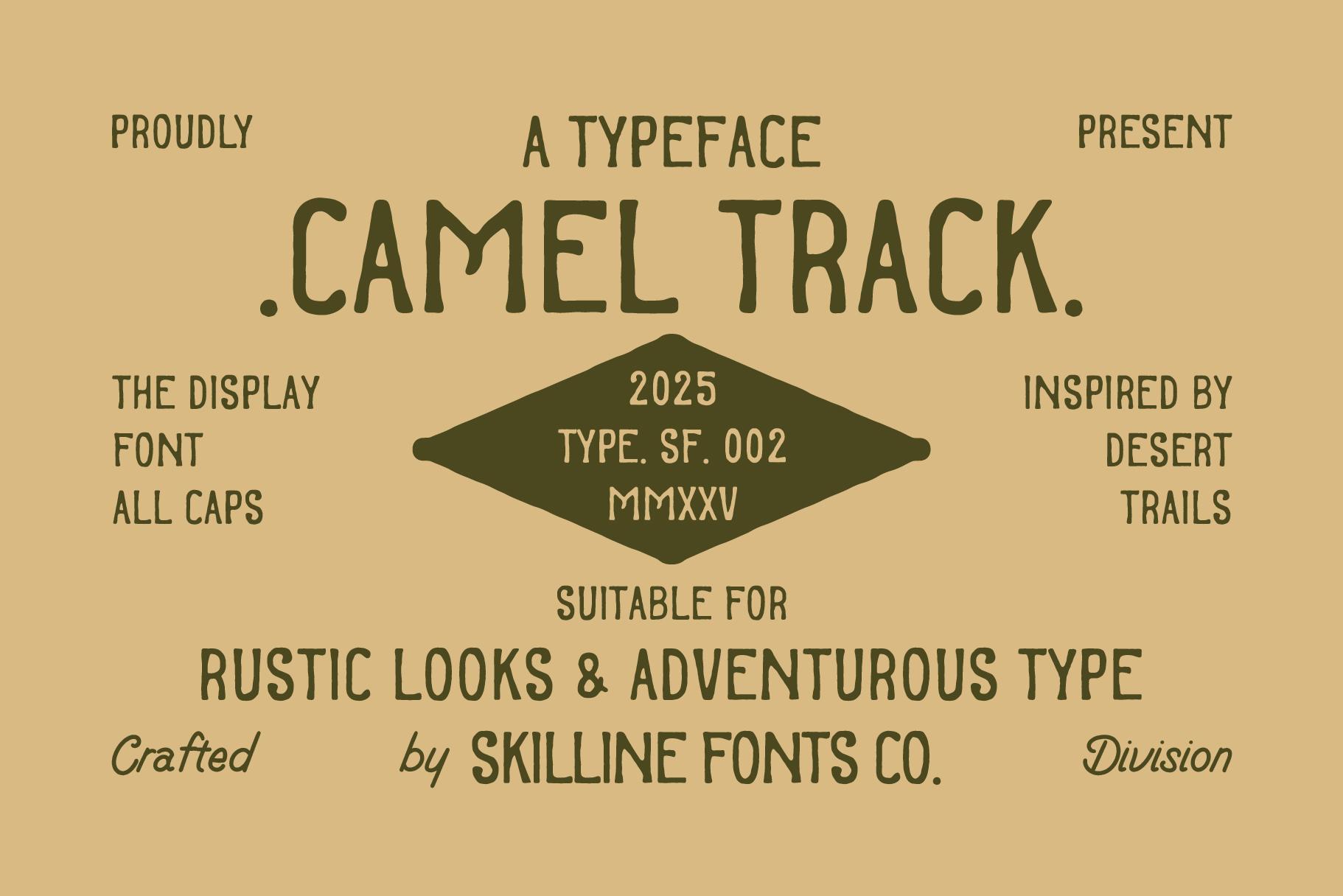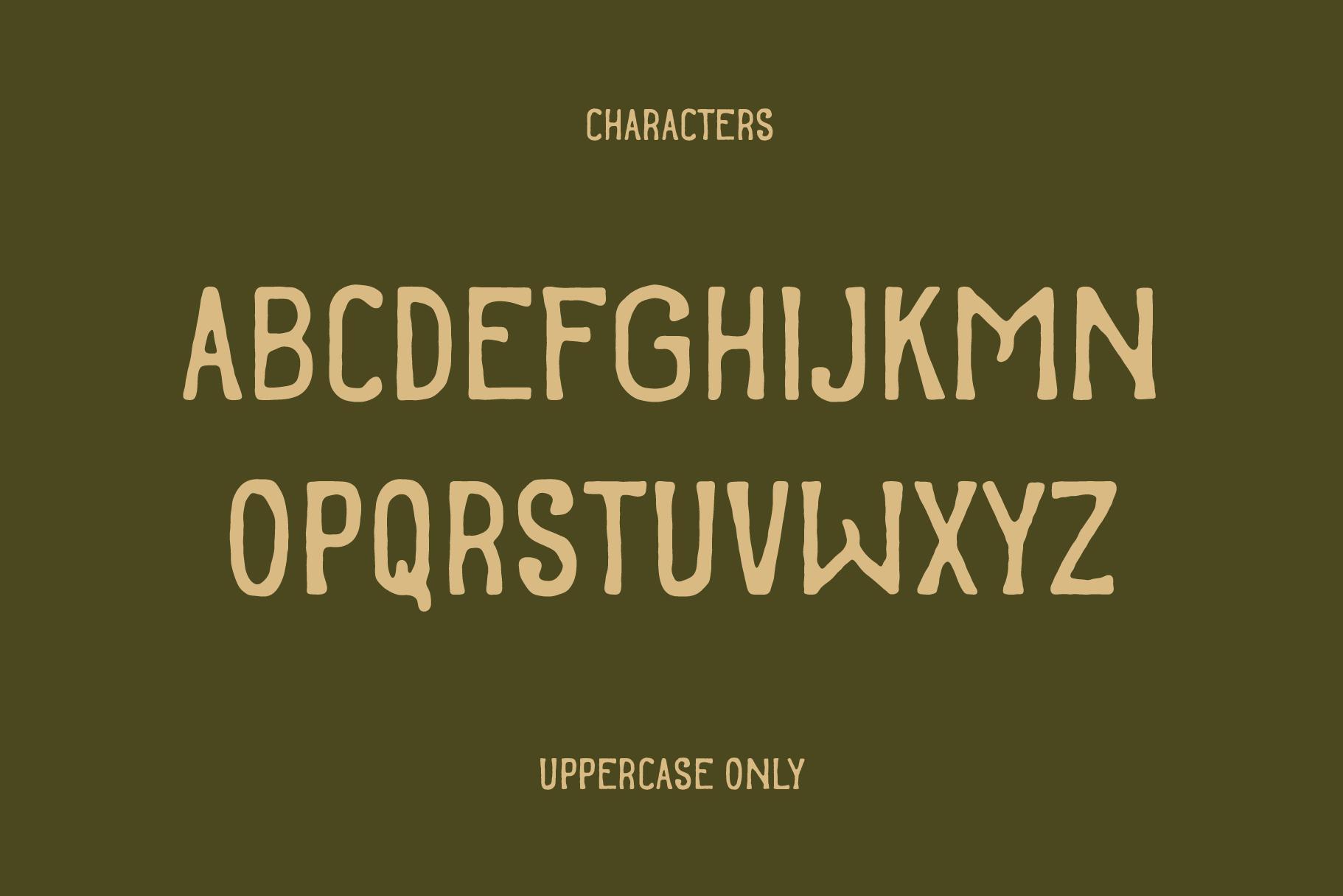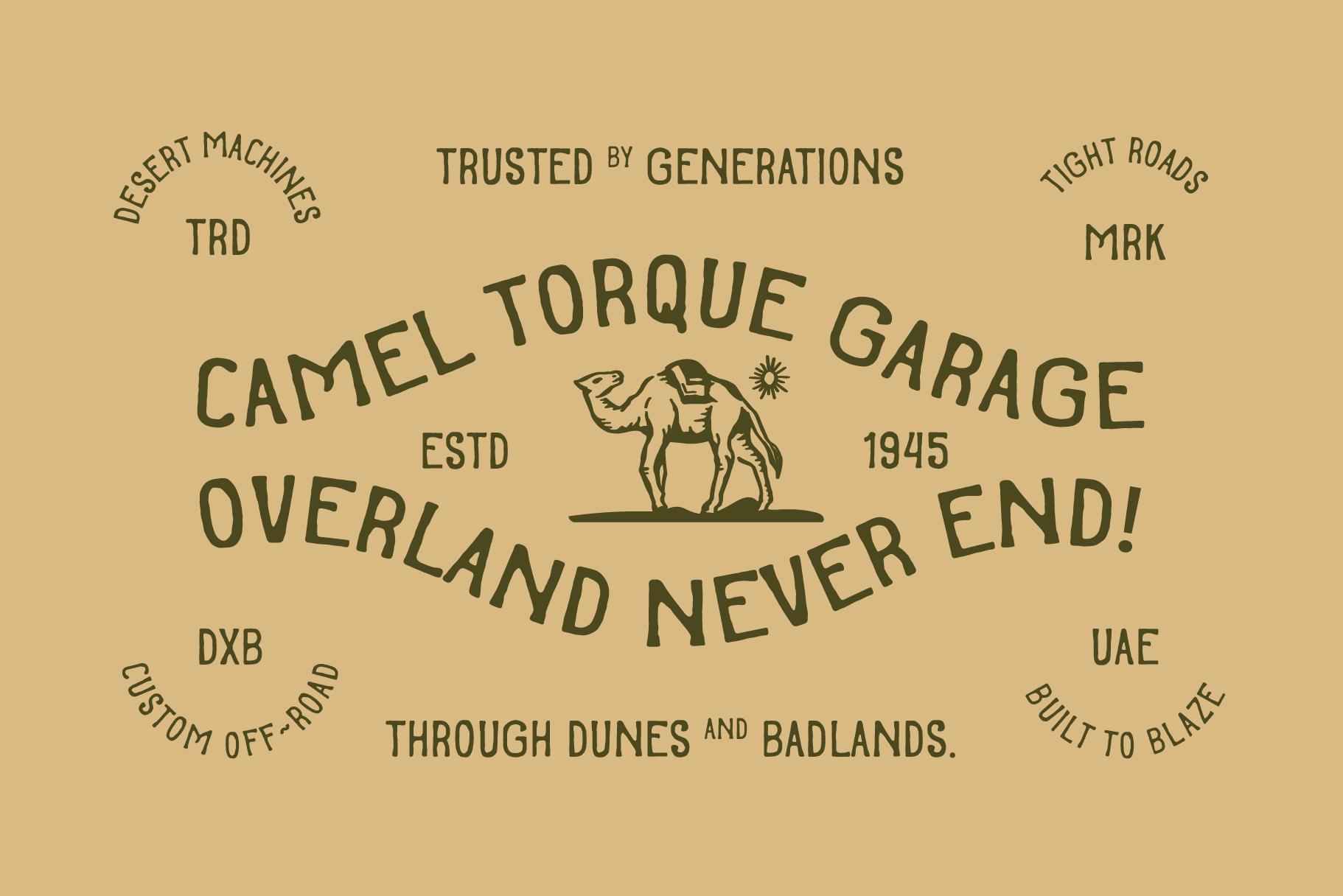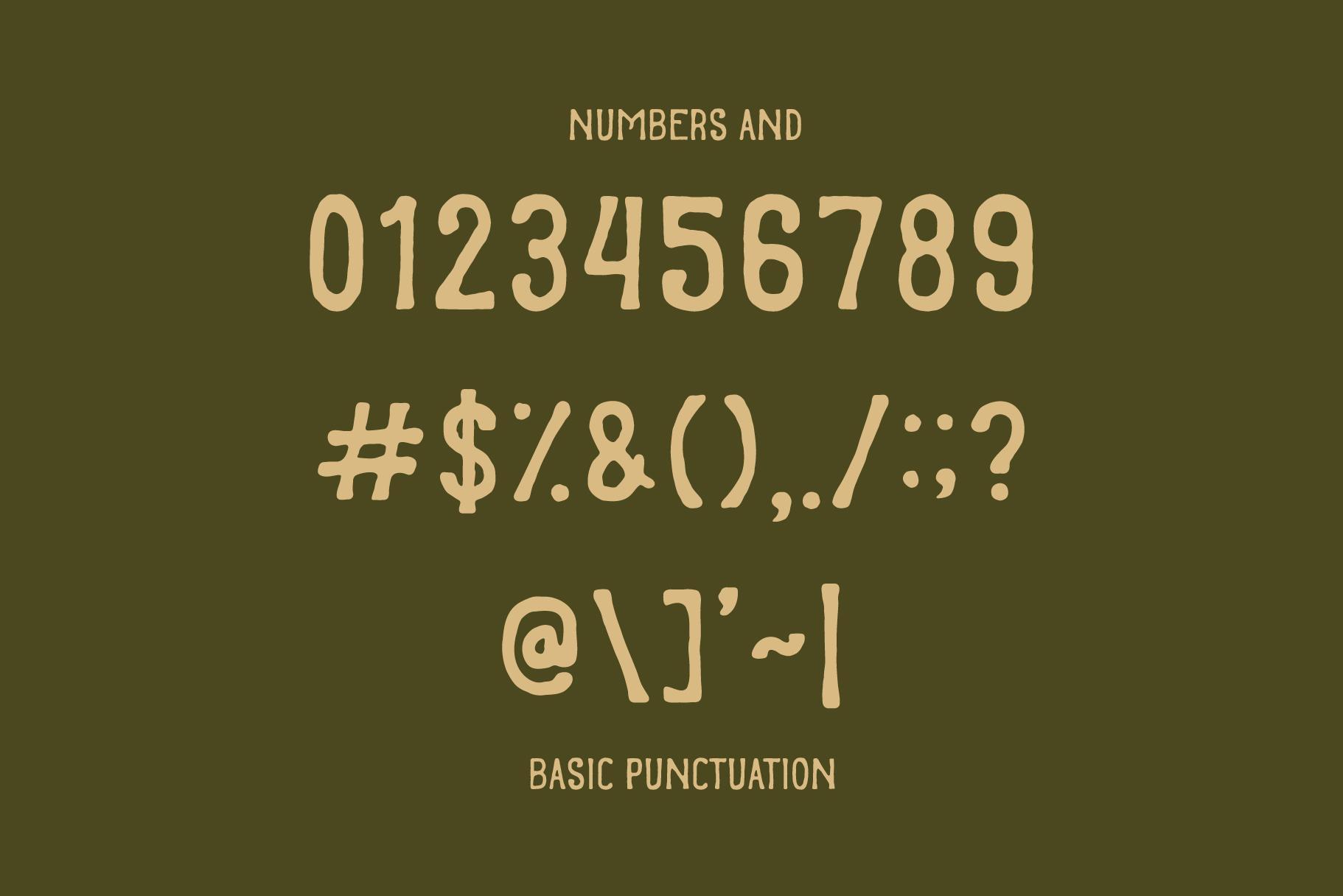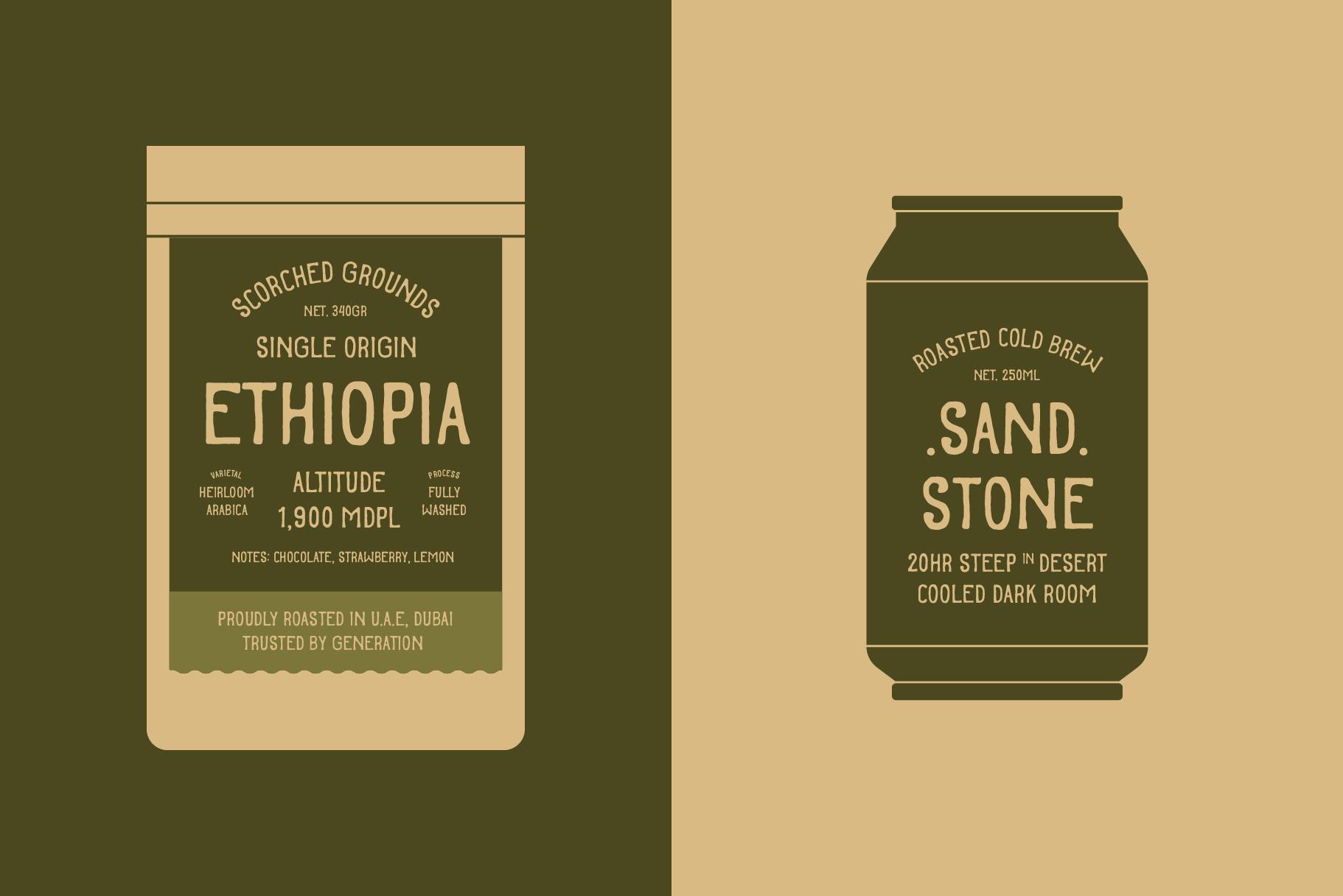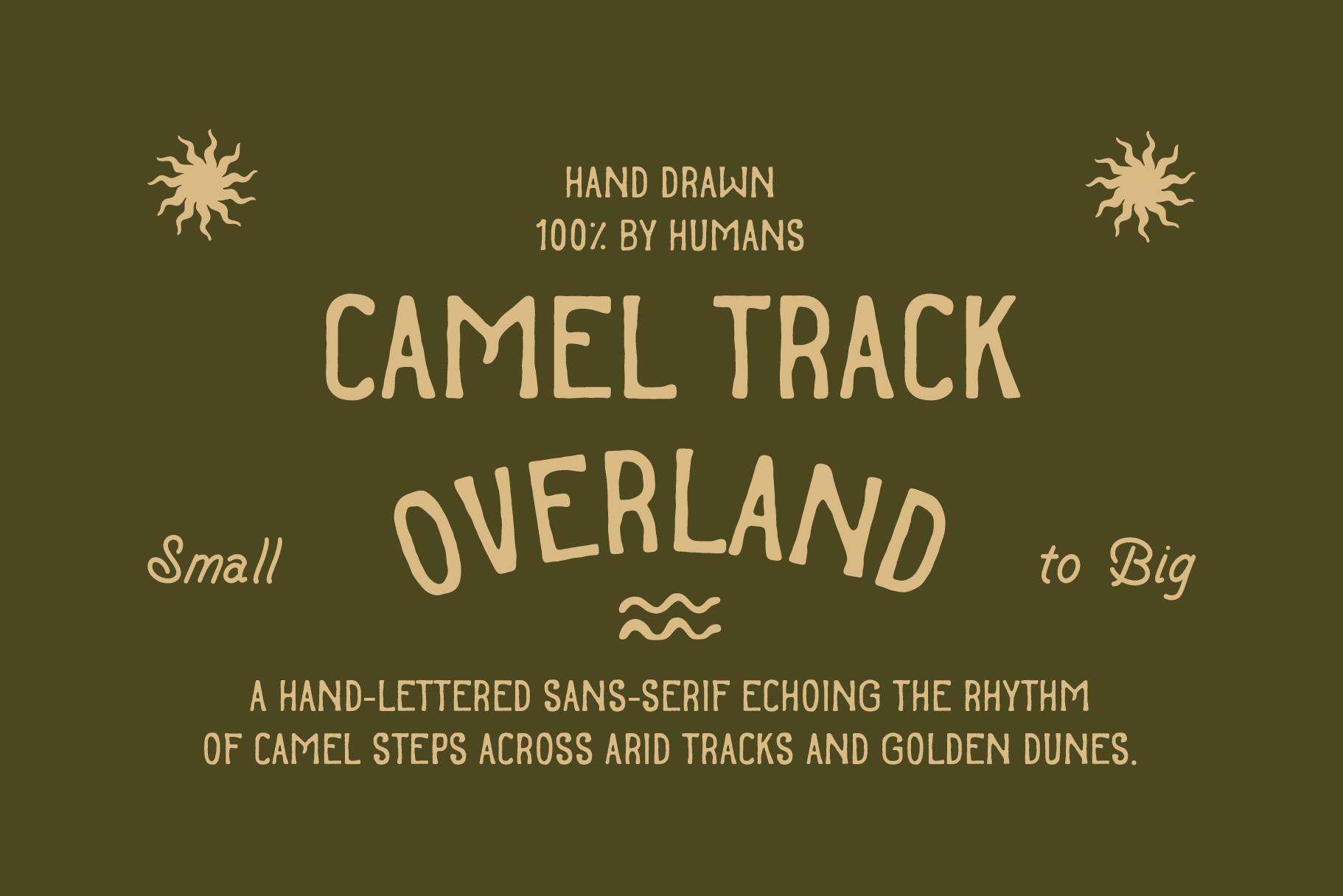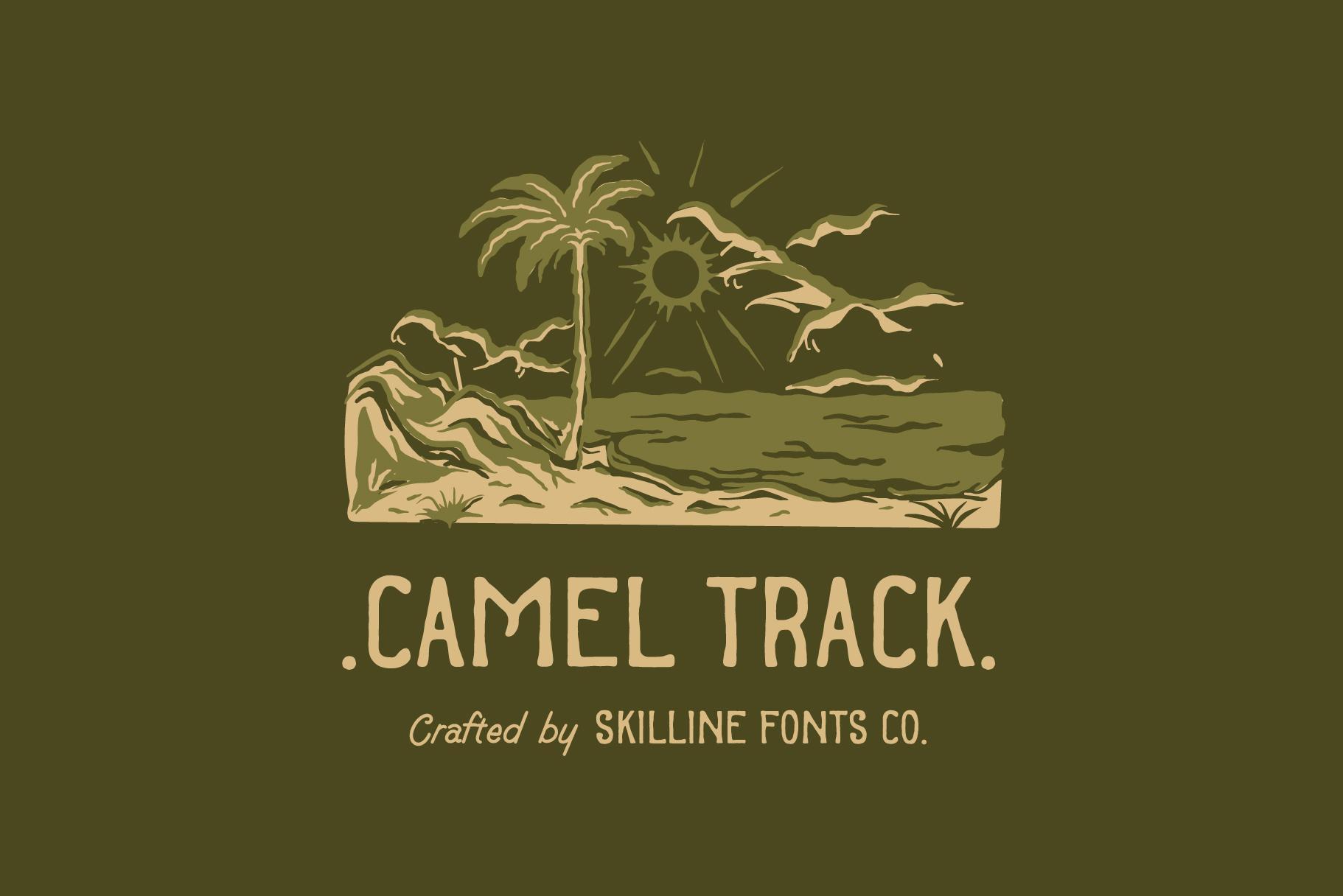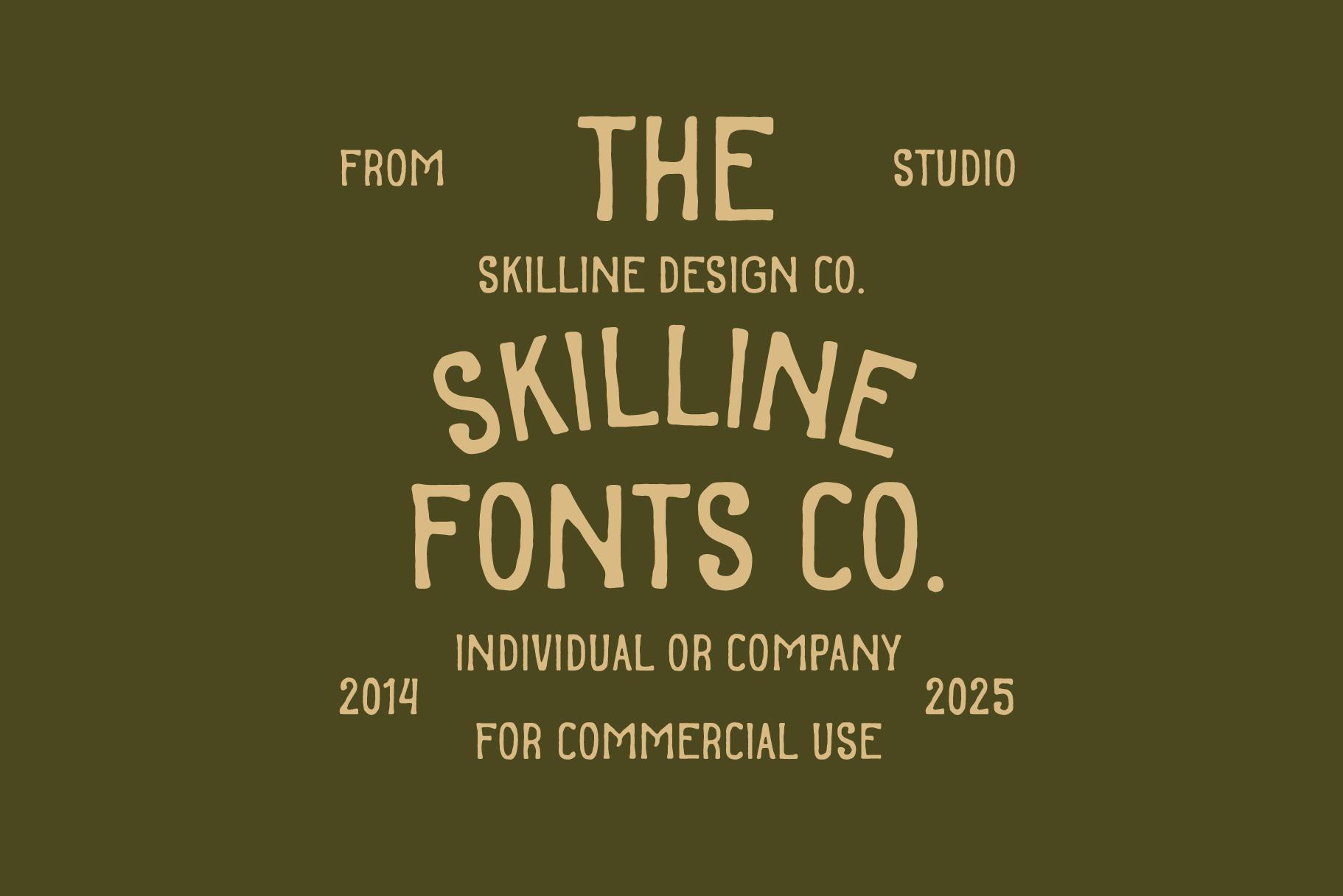
Camel Track - Rustic Vintage Font
Camel Track is a rustic vintage font with a handlettered sans serif style, crafted with bold strokes, subtle imperfections, and timeless character. Designed for modern creatives who want a touch of nostalgia, it strikes the perfect balance between rugged authenticity and versatile usability. Whether you’re building a retro brand, designing editorial layouts, or crafting artisanal packaging, Camel Track brings raw personality and lasting charm to your projects.
Its handcrafted sans serif structure with organic lines gives it a warm, authentic qualit, perfect for badges, logos, posters, labels, and merchandise.
Camel Track is best suited for designers who want to create branding and logo designs with rustic, vintage appeal, while making strong statements across digital and print platforms. Its handlettered style makes it an excellent choice for editorial spreads, retro-inspired books, and poster design, while its bold, organic aesthetic brings a unique edge to packaging, perfect for coffee labels, craft goods, and handmade products. Beyond print and packaging, Camel Track also excels in apparel and merchandise, adding character and originality to shirts, hats, and lifestyle products.